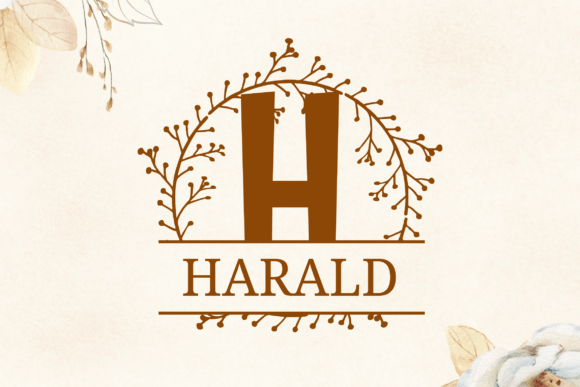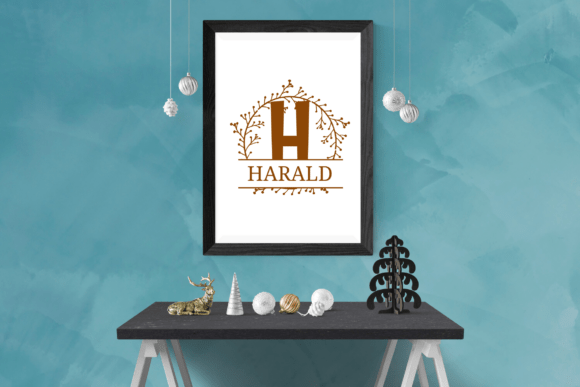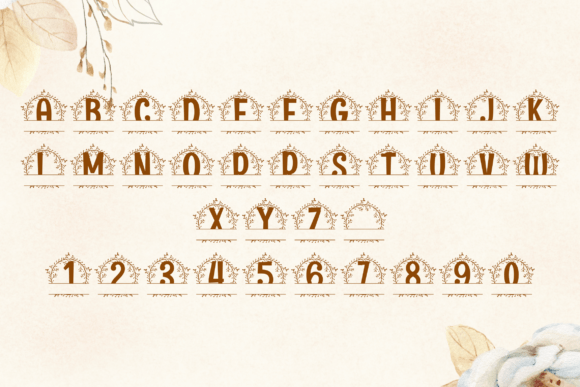
Introduction to Laurentis Split Monogram Font
As a designer, have you ever found yourself in a creative bind, staring at a blank page, trying to come up with the perfect monogram for a special project? Perhaps it’s a wedding suite, a boutique logo, or a keepsake gift. Whatever the case, you know that the right font can make all the difference in elevating your design from ordinary to extraordinary. This is where the Laurentis Split Monogram Font comes in – a game-changing design resource that’s about to become your new go-to.
| 👤 Author | Sharon ( DmStudio ) |
With its clean center split and laurel-inspired design, the Laurentis Split Monogram Font turns simple initials into refined emblems that exude high quality and sophistication. Whether you’re working on a small project or a large-scale design, this versatile font is sure to impress with its smooth strokes and balanced proportions.
Key Features of Laurentis Split Monogram Font
- High-quality design resource ideal for creative projects requiring elegant, sophisticated typography.
- Each character is carefully crafted to provide a high level of detail and sophistication, making it perfect for special occasions or luxury branding.
Honest Review: Laurentis Split Monogram Font
I recently stumbled upon the Laurentis Split Monogram Font and I must say, I’m quite impressed with its high quality and versatility. As a designer, it’s always exciting to find a new design resource that can elevate my creative projects.
Here are some aspects that work well: ✨
- High-quality design: The font is well-designed, with clean lines and a classic look that’s perfect for formal or elegant projects.
However, there are a few limitations: ⚠️
- Limited customization options: While the font is beautiful, it’s a bit limited in terms of customization options, which might not be ideal for designers who like to experiment with different styles.
- Not suitable for all projects: The font is quite formal, so it might not be the best choice for more casual or playful projects.
Overall, I’m impressed with the Laurentis Split Monogram Font, and I think it’s a great addition to any designer’s toolkit. Just be mindful of its limitations and use it for the right projects.
Tips for Getting the Most Out of Laurentis Split Monogram Font
Use the font on a transparent background to create a unique and eye-catching design. Experiment with different font sizes and styles to add visual interest to your project. The high-quality design of the font makes it perfect for a variety of creative projects.
The Laurentis Split Monogram Font is ideal for creating custom invitations, social media graphics, and branding materials. It’s also a great resource for designers looking for a free download to add a personal touch to their projects.